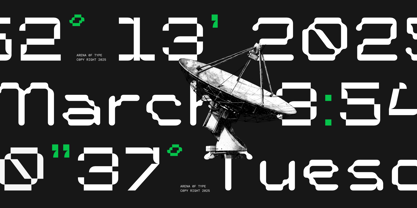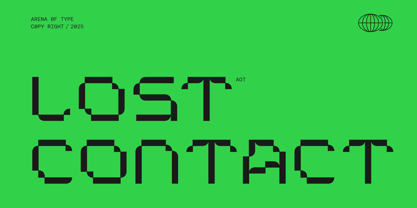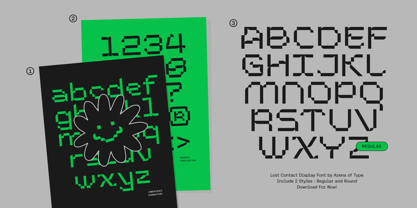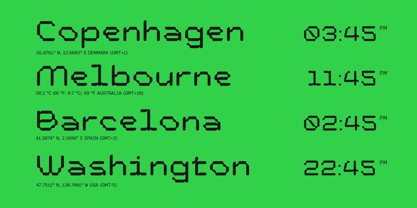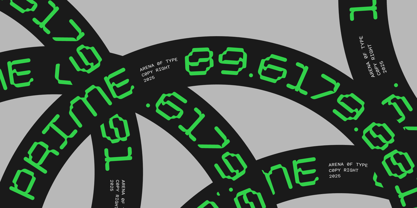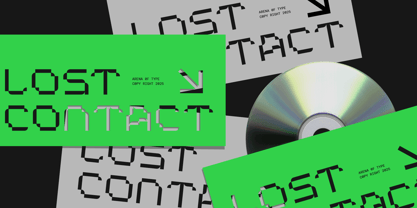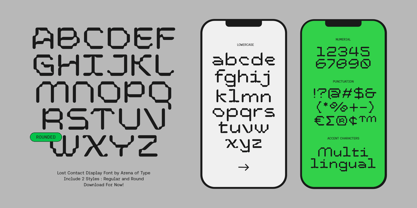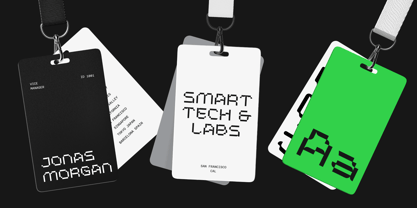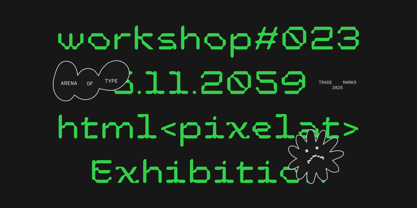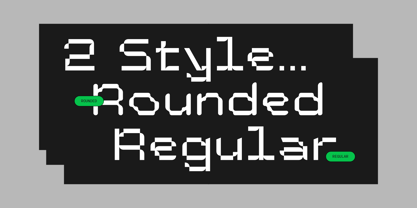
AOT Lost Contact
by Arena Of Type
The AOT Lost Contact Font Family was designed by Prio Nurokhim Aji and published by Arena Of Type. AOT Lost Contact contains 2 styles and family package options. More about this family
AOT Lost Contact - Contemporary Pixel Font
AOT Lost Contact is a beautifully crafted pixel font that blends retro charm with modern readability. Inspired by monospaced typefaces, it brings a structured yet visually engaging appeal, making it perfect for a variety of digital and print projects. Designed with precision, AOT Lost Contact offers two versatile styles—Regular & Rounded—allowing for flexibility in creative expression.
With its crisp, well-defined letterforms, this font is ideal for gaming interfaces, pixel art, tech-inspired branding, UI/UX design, and futuristic editorial layouts. Whether you're channeling the nostalgia of classic arcade games or building a sleek digital aesthetic, AOT Lost Contact ensures clarity and character in every design.
Embrace the fusion of retro aesthetics and contemporary functionality with AOT Lost Contact, a font that brings pixel perfection to your creative vision.
Designers: Prio Nurokhim Aji
Foundry: Arena Of Type